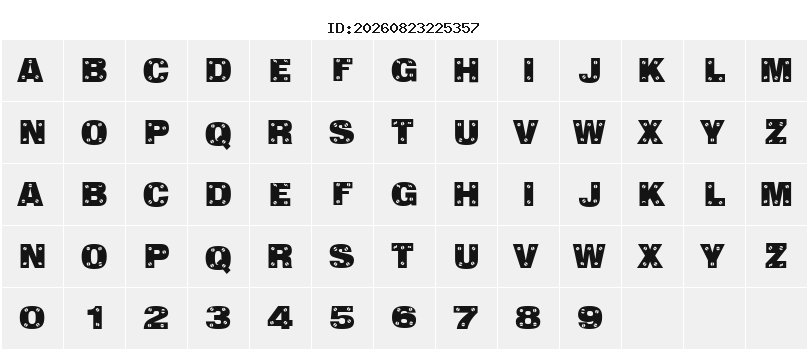
Sans Plate Caps Preview
• Font Name: Sans Plate Caps
• Full Font Name: Sans Plate Caps
About Sans Plate Caps.ttf
Sans Plate Caps.ttf is a modern, elegant sans-serif font designed for ultimate readability and visual harmony. Perfect for branding, headlines, web design, and print materials.